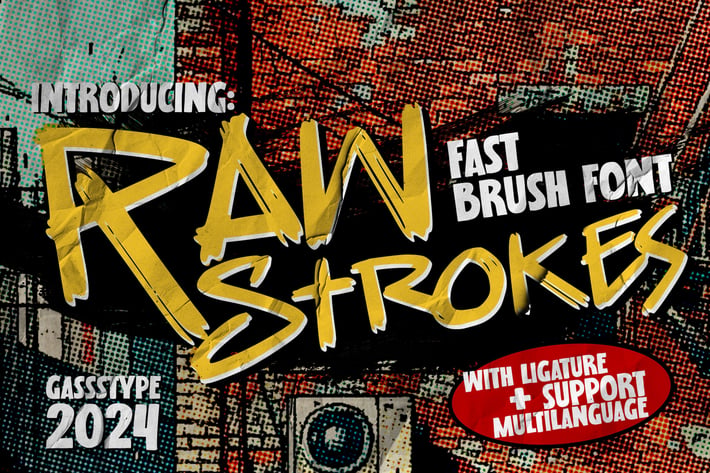
Raw Strokes - Fast Brush Font
Raw Strokes Font: Where Creativity Meets the Edge
Step into the wild with Raw Strokes, a hand-drawn brush font that captures the raw, untamed spirit of creativity. Each letter in Raw Strokes is crafted with rugged, unpolished energy, bringing a sense of authenticity and grit to your designs.
This font isn’t just about perfect lines—it’s about the beauty of imperfection, the power of every brushstroke, and the boldness of taking risks. Ideal for projects that demand a touch of rebellion and a break from the norm, Raw Strokes adds a layer of texture and character to your work.
Whether you’re designing edgy posters, daring logos, or standout headlines, Raw Strokes delivers a rough and ready aesthetic that’s as bold as your ideas. Let your designs roar with the unrefined power of Raw Strokes—where every line tells a story.